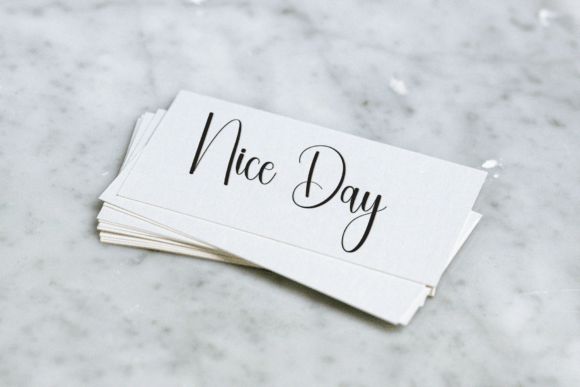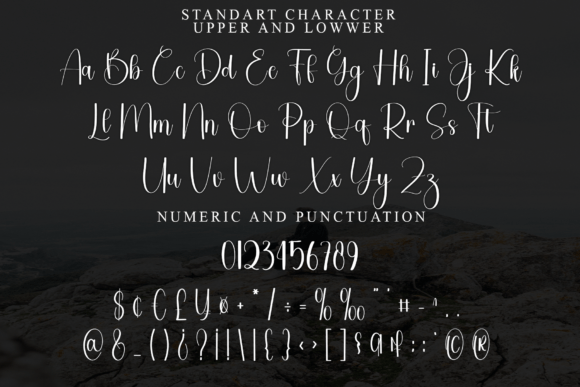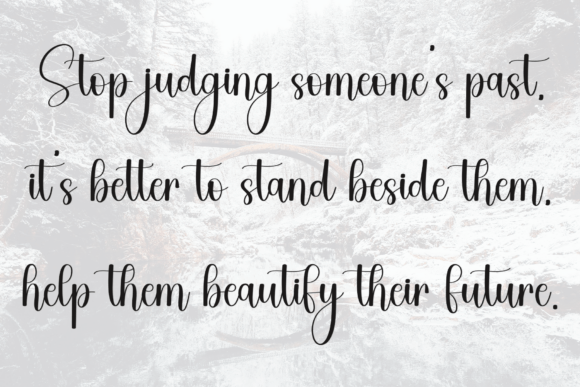
Butter Beans Font
Butter Beans is a stylish and incredibly elegant script font. It looks stunning on wedding invitations, thank you cards, quotes, greeting cards, logos, business cards and every other design which needs a handwritten touch.